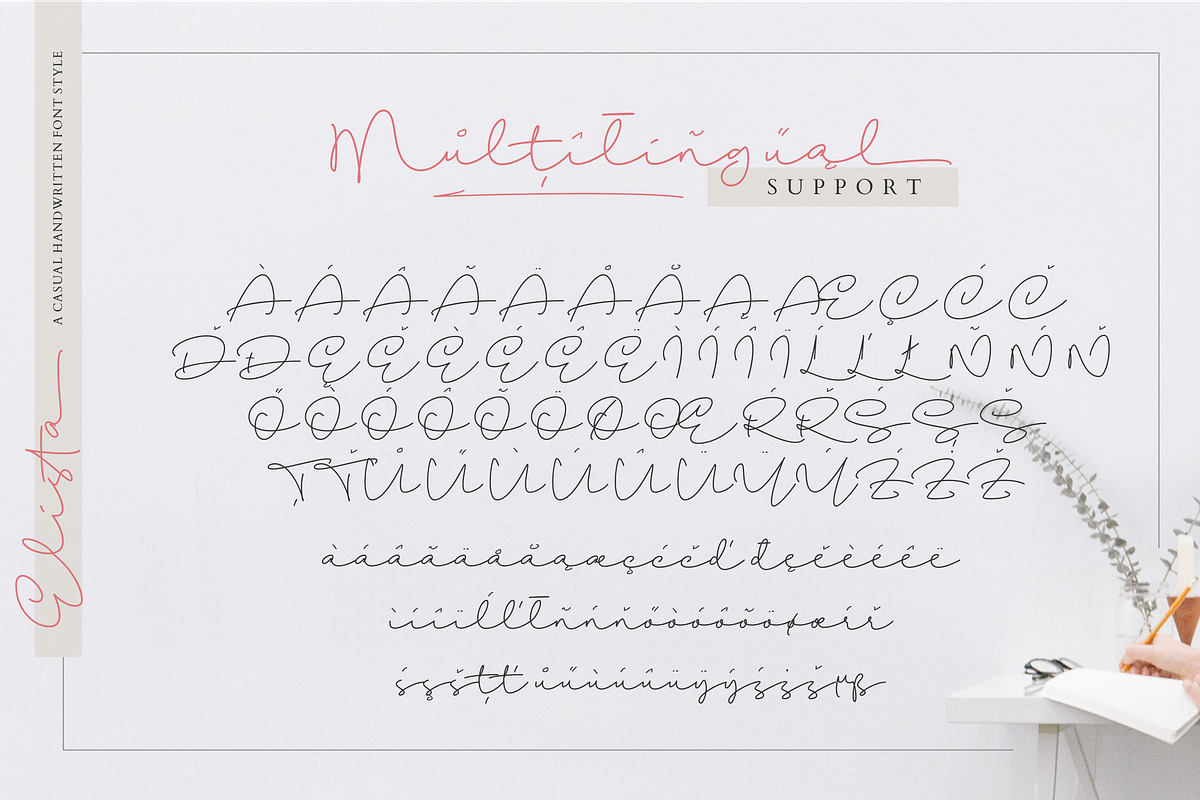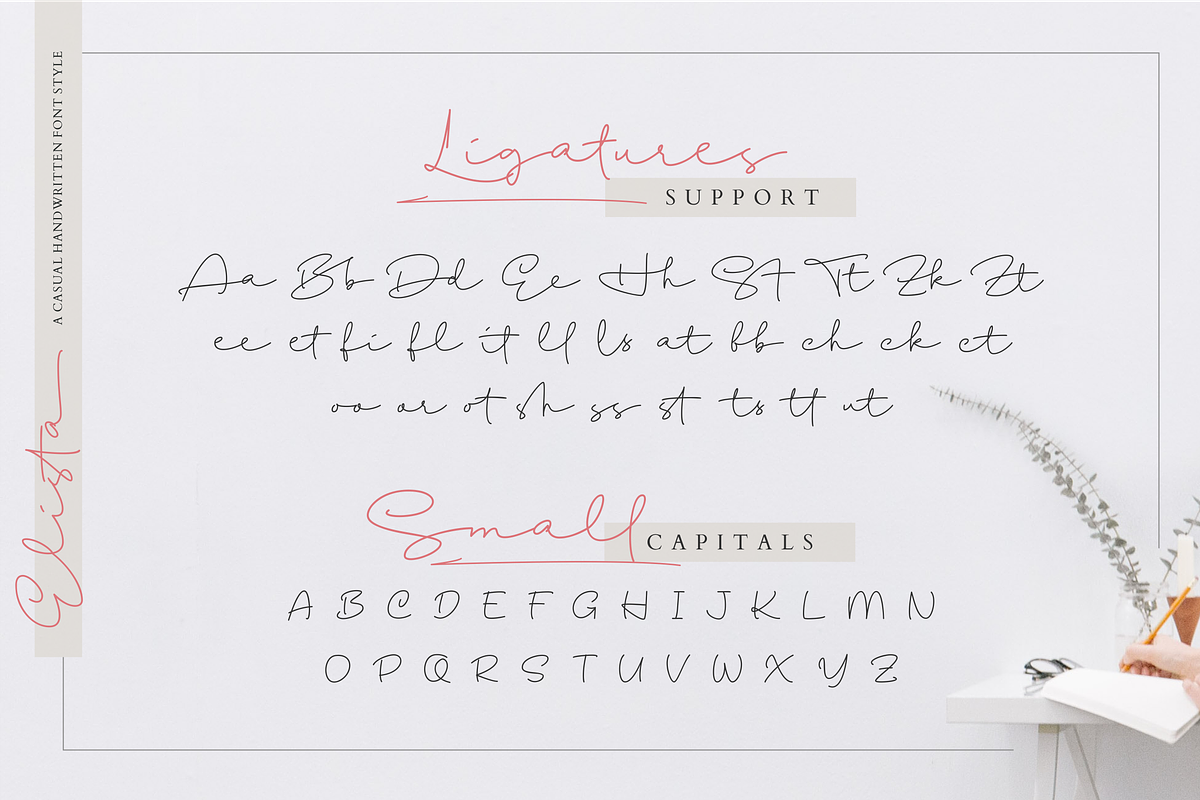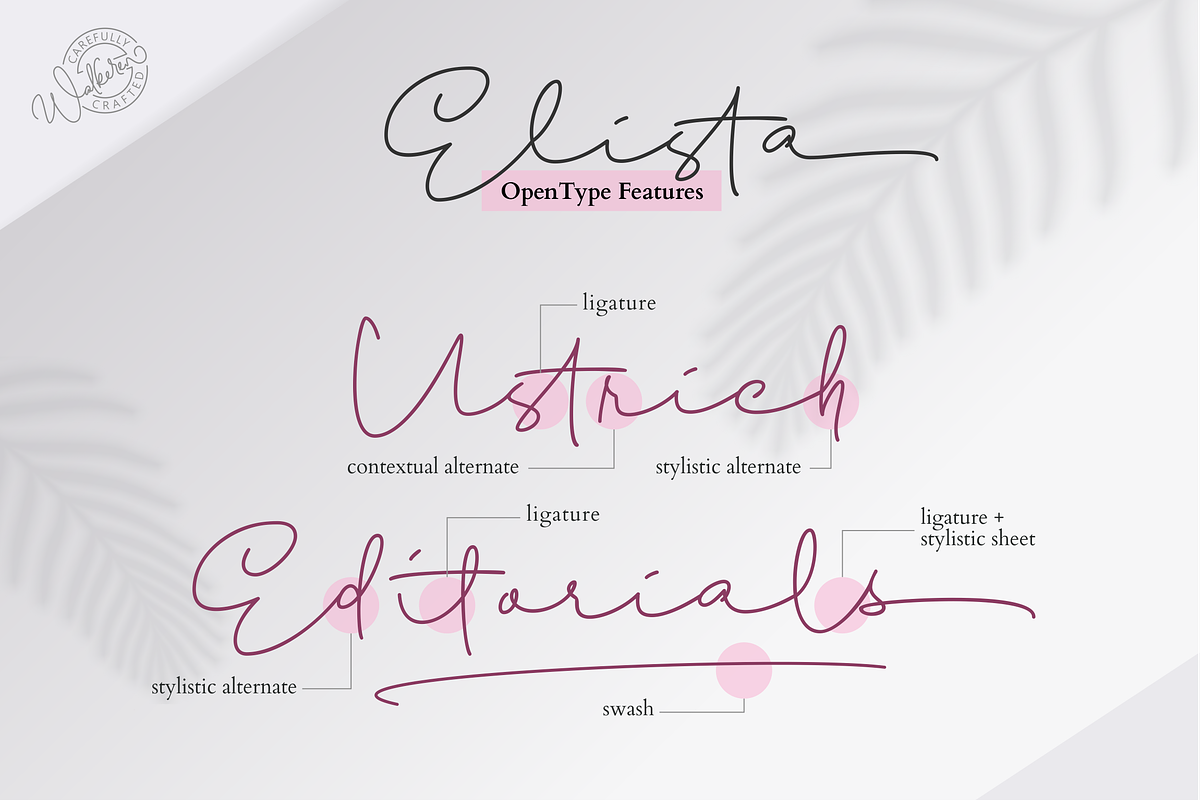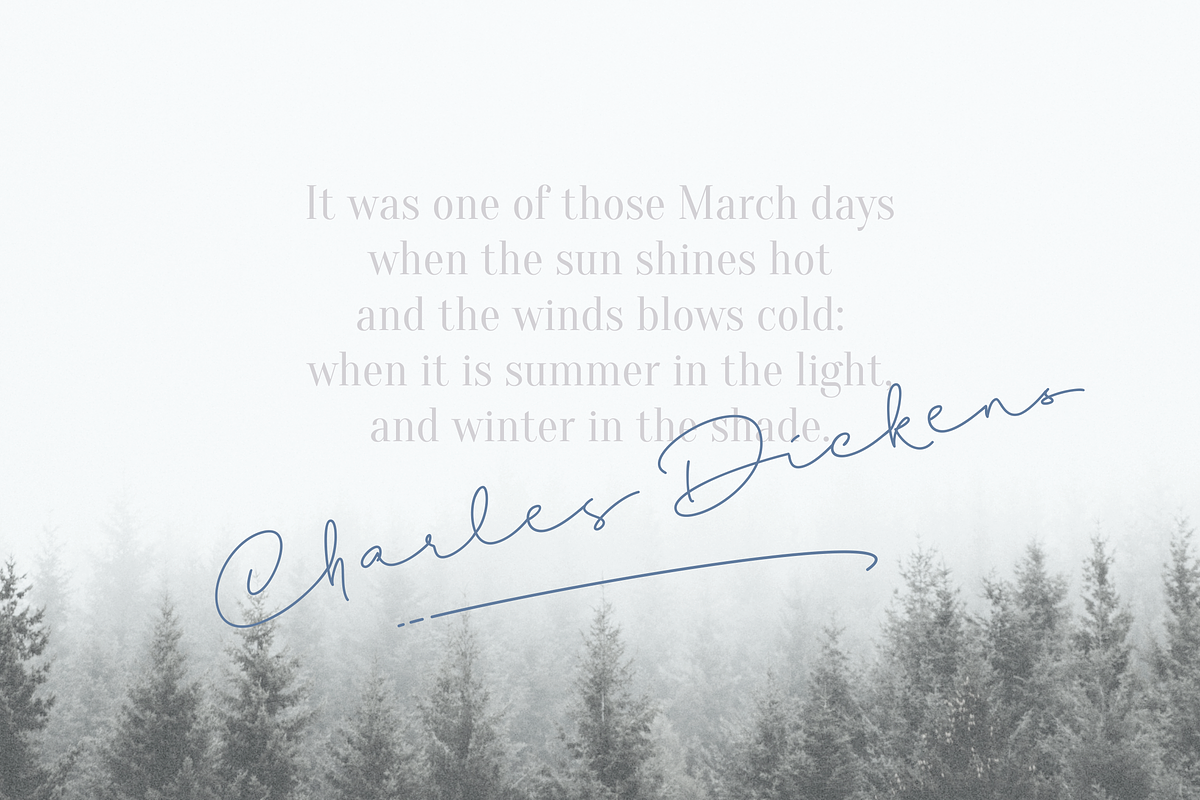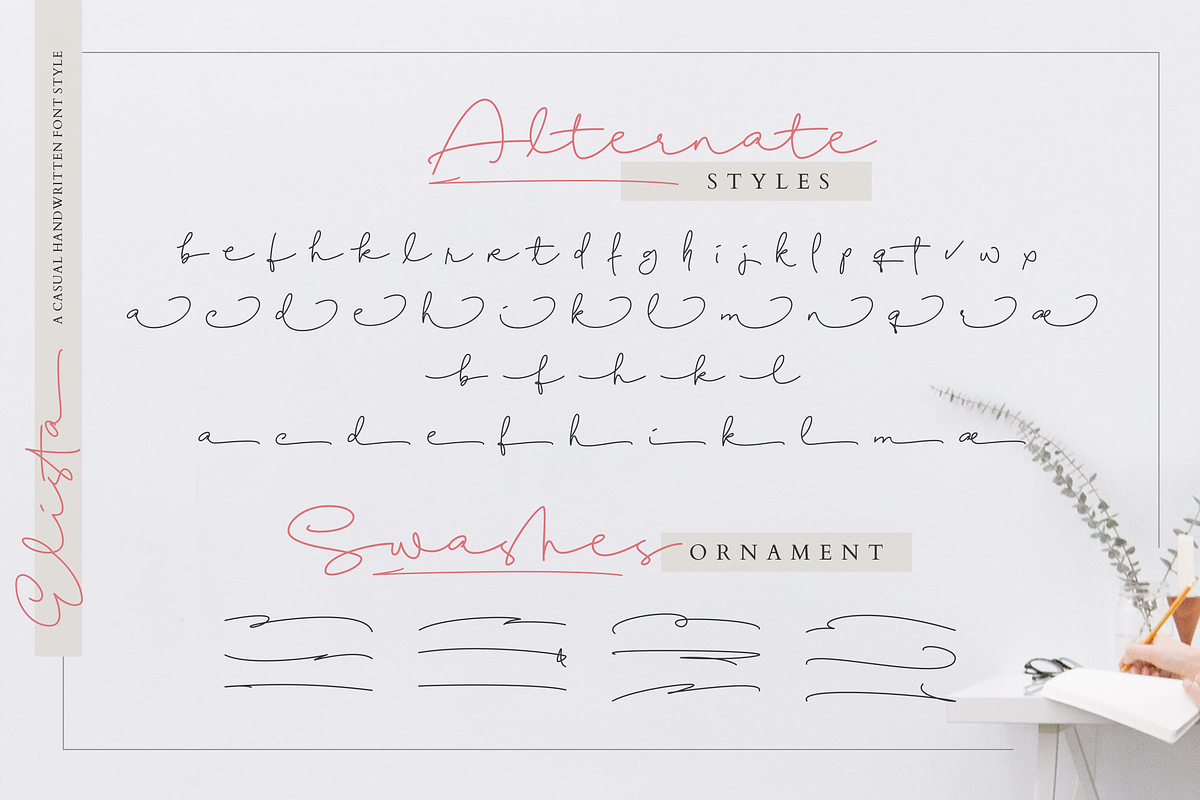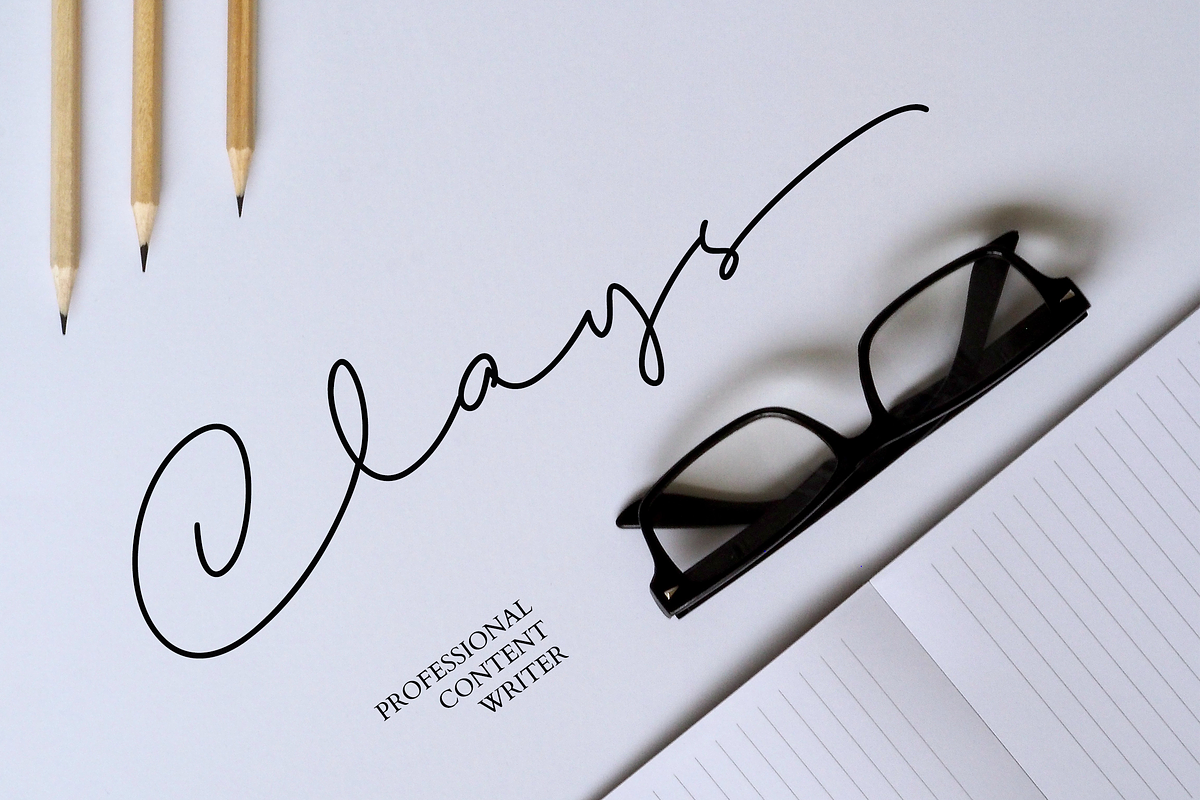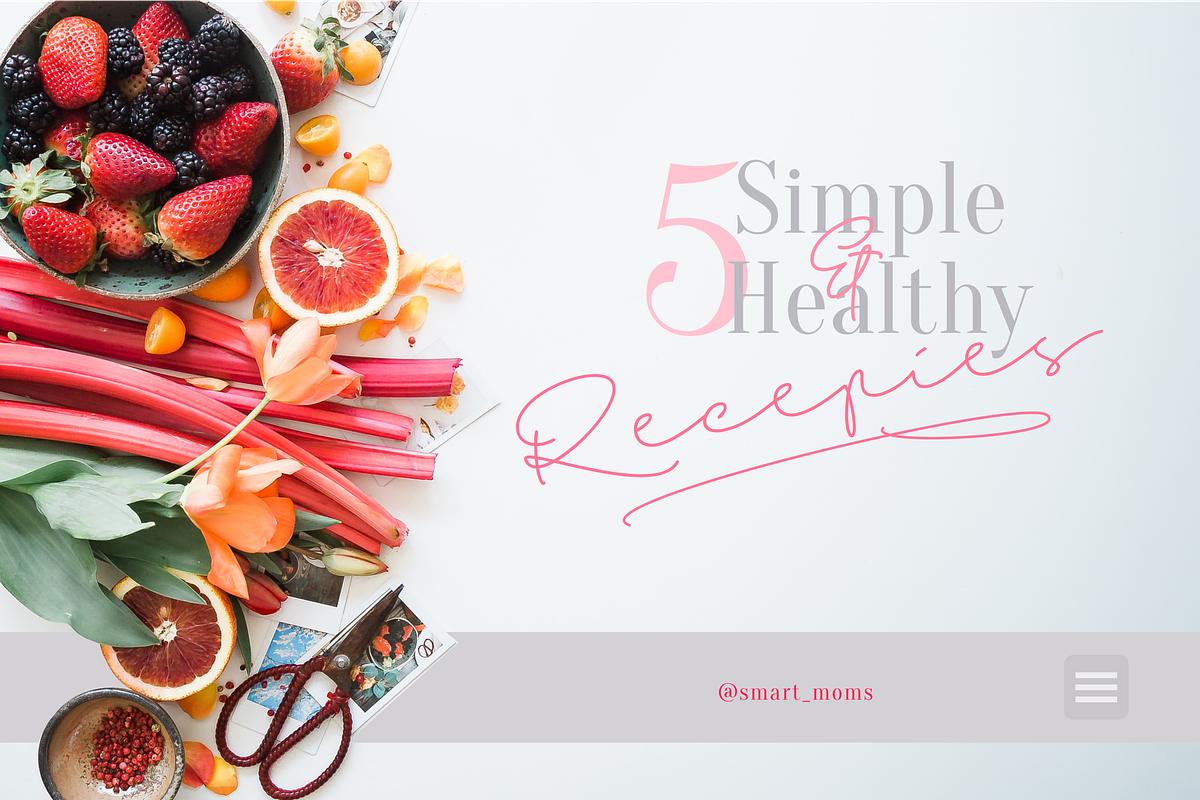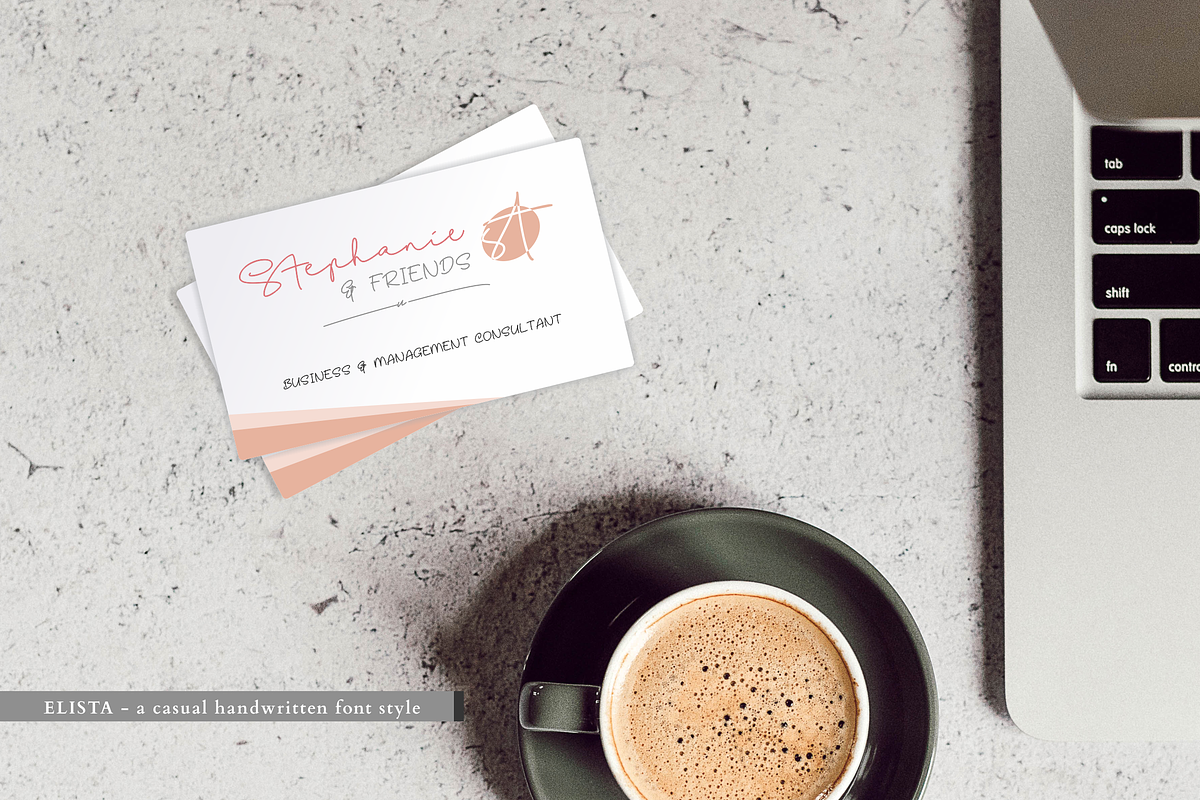
Elista // A Casual Handwritten Font
Proudly presents you with casual handwritten font style, Elista!
Elista is a combination of smooth paths and strong strokes that gives you a unique casual handwriting effect. Perfect for designs that require feminine style but still have a strong touch.
You can use Elista for branding projects, homeware designs, product packaging, t-shirt, logo or simply as text overlay to any image background for a poster or Instagram posts.
Elista comes with small-caps, some alternative glyphs of several characters, support for ligatures and multilanguage. Elista also comes with various of swashes included in a separated file. All those features built-in OpenType and private use area, that make you can access them easily even your software not support OpenType.